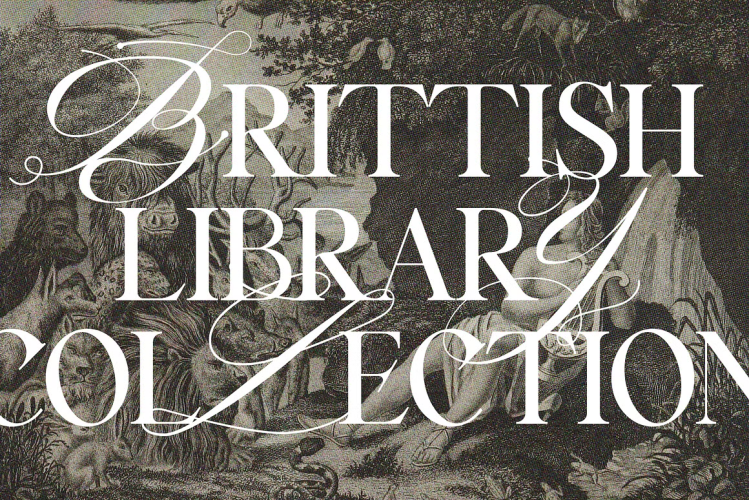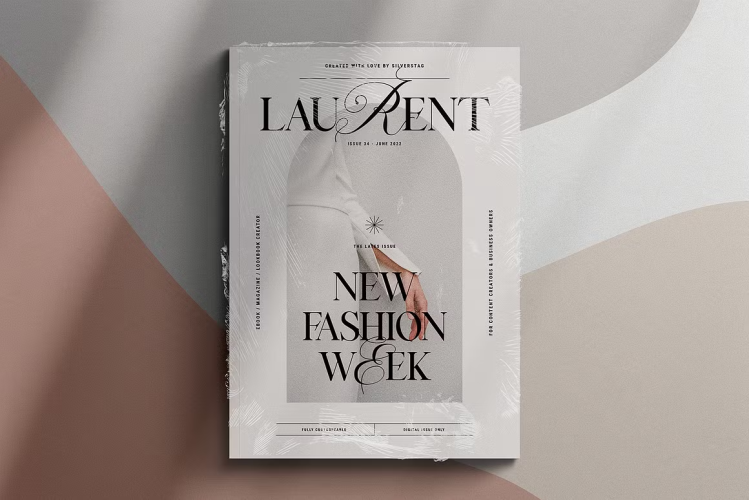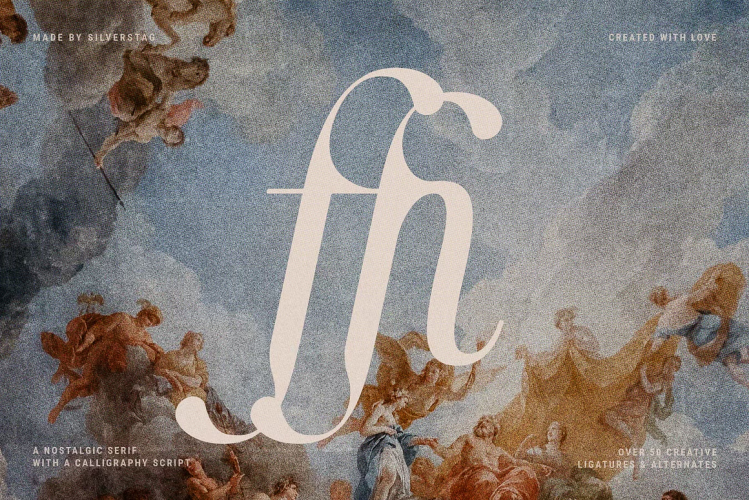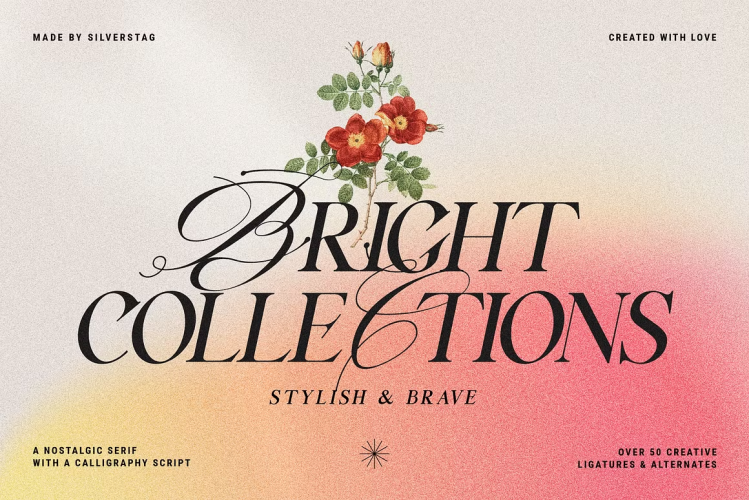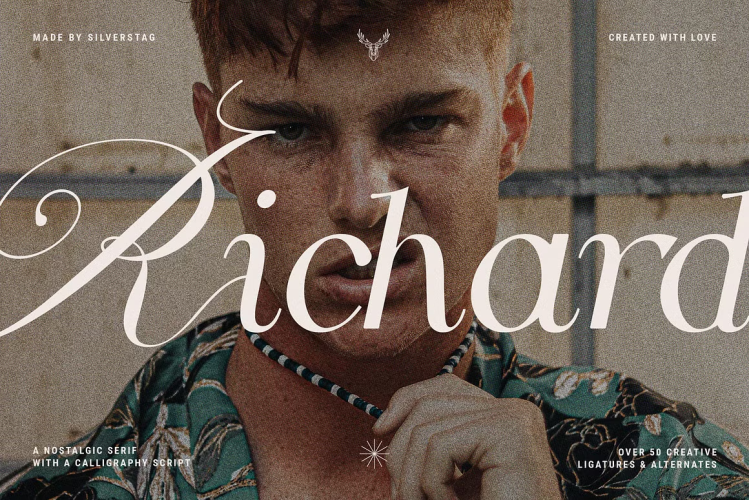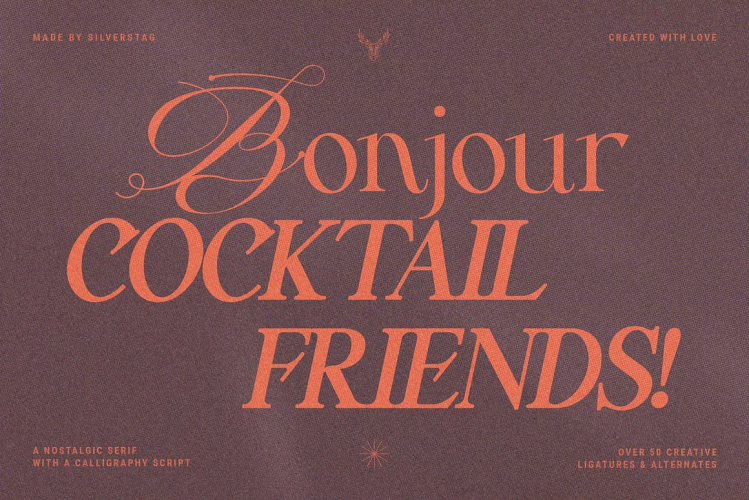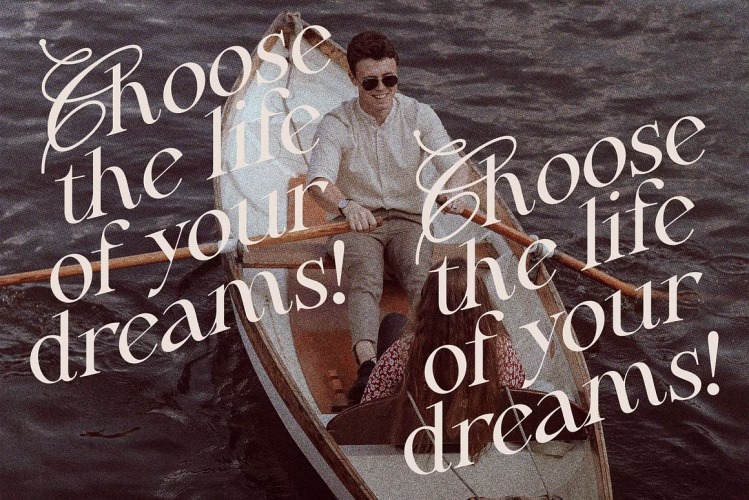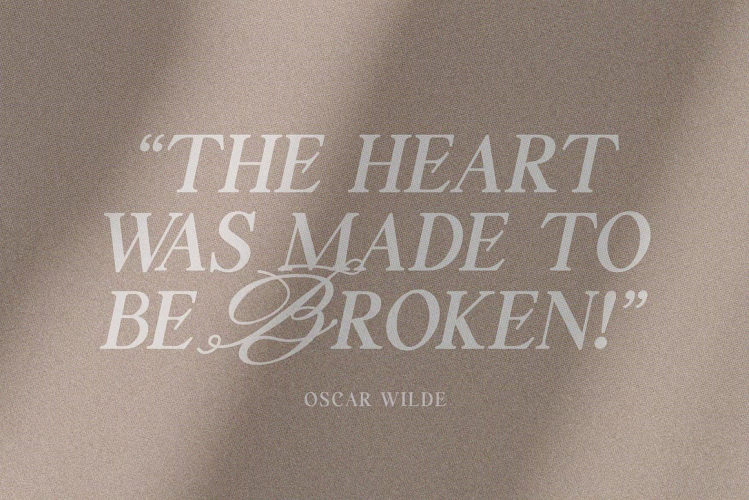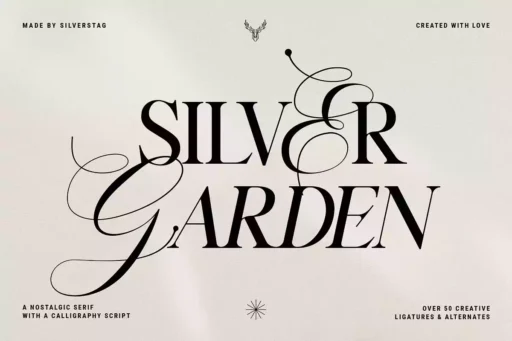
Silver Garden Font
Silver Garden is a nostalgic serif font duo with a touch of calligraphy script. SilverStag Type Foundry designed and introduced this modern and beautiful font. The word ‘Silver’ in the name Silver Garden gives the font a special feel. This versatile font family includes four distinct styles: regular, italic, bold, and bold italic.
The basic serif font, in its regular and italic styles, gives off a cool, classy, and stylish aura suitable for modern designs. However, the bold and bold italic styles have more curves than the regular type, which gives the font a retro and vintage look and feel of traditional typography. This trait makes it possible for this font to be both new and classic.
There are more than 25 lowercase ligatures in each font style of Silver Garden to enhance the creativity of connecting letters. Moreover, a set of uppercase script alternates enhances the choice, so your text will be even more expressive with the individual approach. The font also has a full set of characters, punctuation marks, and numerals, which allows the use in various international projects.
Where Silver Garden Font works best
Silver Garden Font gives long-form text a classic, trustworthy rhythm — ideal for magazine spreads, annual reports and book interiors.
Pair Silver Garden Font with generous letter-spacing for wordmarks in fashion, hospitality, wine and jewellery branding.
Use Silver Garden Font for slide titles in Keynote, PowerPoint or Google Slides to add authority without looking dated.
What is Silver Garden Font good for?